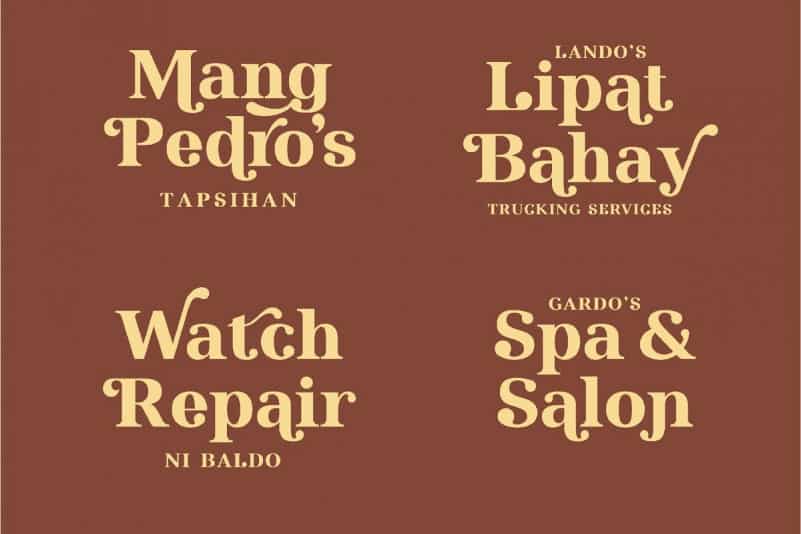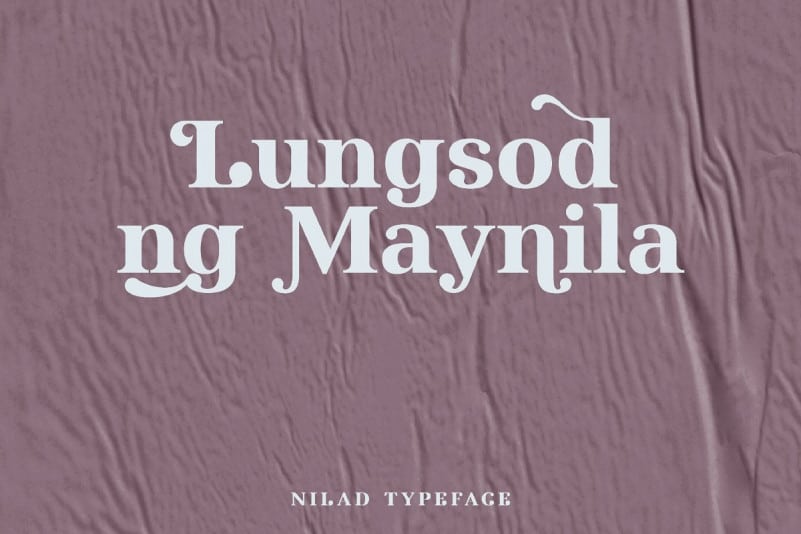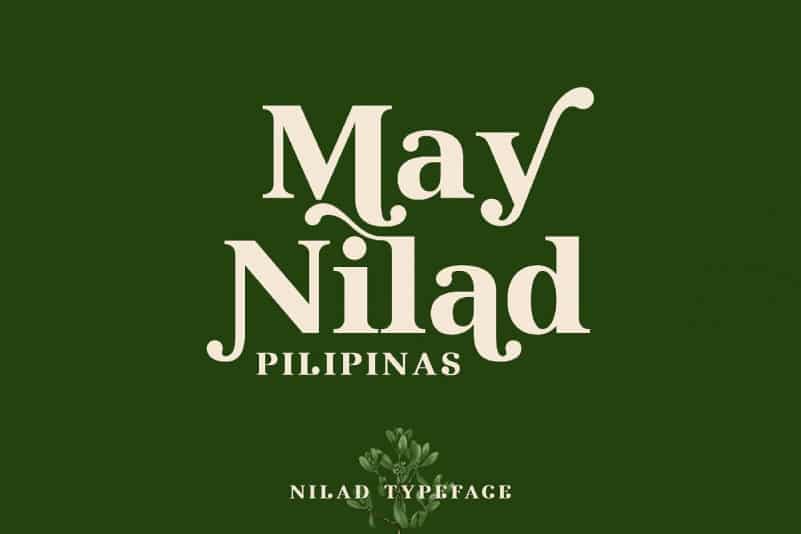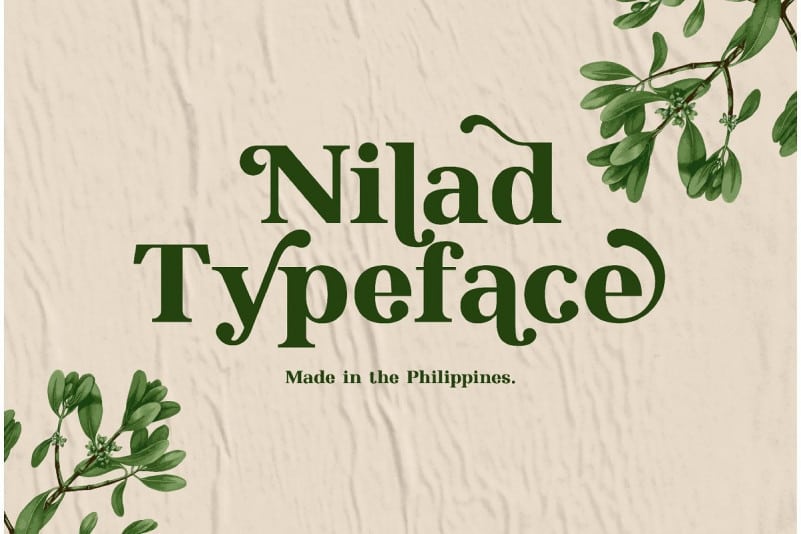
Nilad Serif Font
Nilad Serif Font is a modern Serif with a very unique alternate and ligature. This typeface was inspired by the flourishing bud of Yamstick Mangrove or Nilad. Manila is the capital city of the Philippines. The term Maynila was said to be coined after the Yamstick Mangrove or Nilad in local name.
Nilad Serif Font came with opentype features such stylistic alternates, stylistic sets & ligatures good for logotype, poster, badge, book cover, tshirt design, packaging and any more.